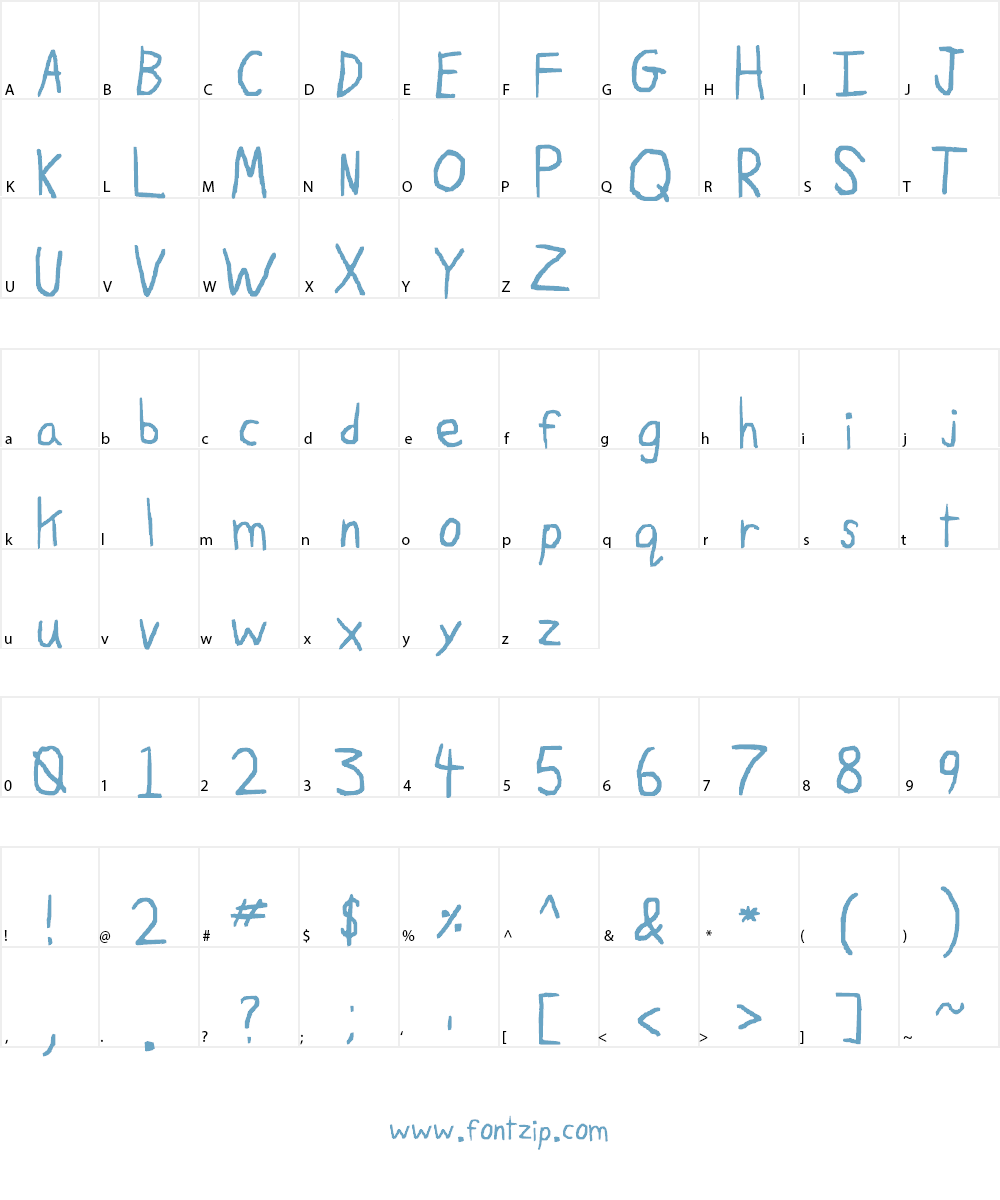
This is version 1.0 of Ruji's Handwriting Font, based on the handwriting of Ruji Chapnik (a.k.a. Ruji C.). It has been used in the Don Depresso webcomic (http://dondepresso.rujic.net) and printed comic books. For more information, visit http://rujic.net.